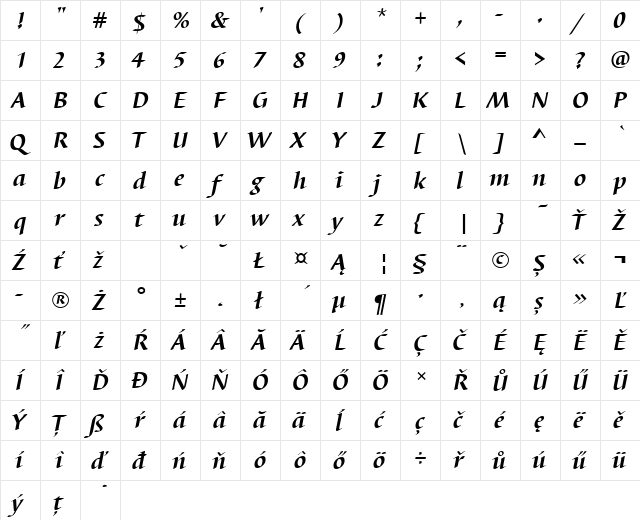
BarbedorTEE Bold Italic Font Preview
Design Context for BarbedorTEE Typeface
BarbedorTEE offers clean, dependable letterforms without strong stylistic allegiance, making it a practical choice for designers who need flexibility. Its italic angle brings a sense of urgency and motion to the letterforms. The heavy weight commands attention and anchors typographic hierarchies.
Pro Tip: Try BarbedorTEE for annotation and caption copy alongside an upright companion — the contrast in angle creates a dynamic but ordered typographic system.